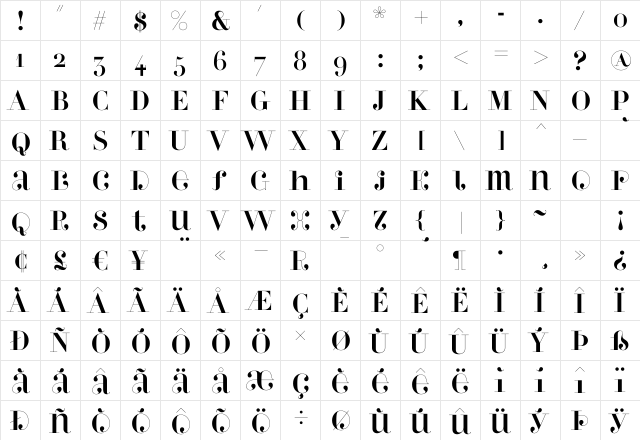
PerlaAlternate Regular
Design Context for PerlaAlternate Typeface
PerlaAlternate takes a measured approach to typography — its balanced proportions and neutral character make it a reliable workhorse for both digital and print work.